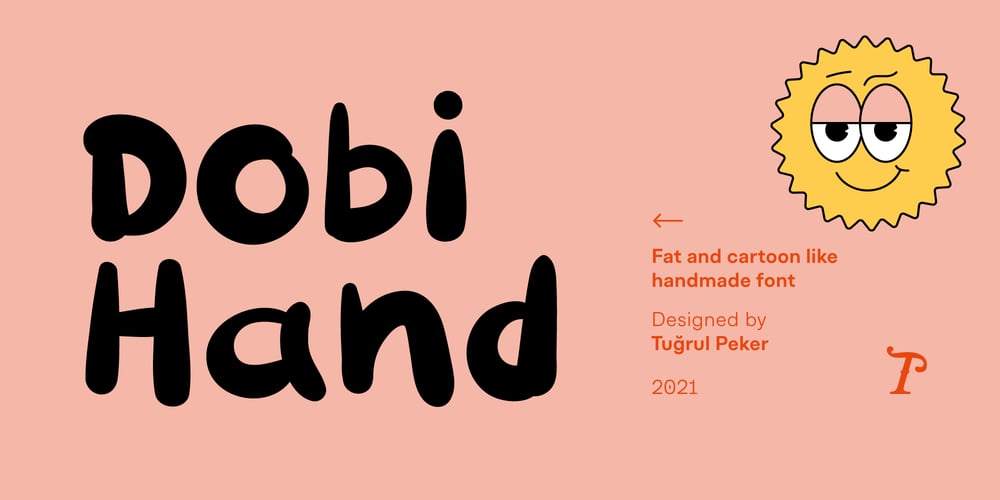
Dobi Hand
Dobi Hand font
Dobi Hand Font Family was designed by Tugrul Peker and published by Tugrul Peker. Dobi Hand contains 1 styles and family package options. Dobi Hand is a fat, bold, fun, cartoon like and has variable contrast handmade typeface. Dobi Hand that can be used for graphic design like food packaging, children books, birthday invitations, greeting cards etc.Dobi means in Turkish “fat, fatty” (in street language)